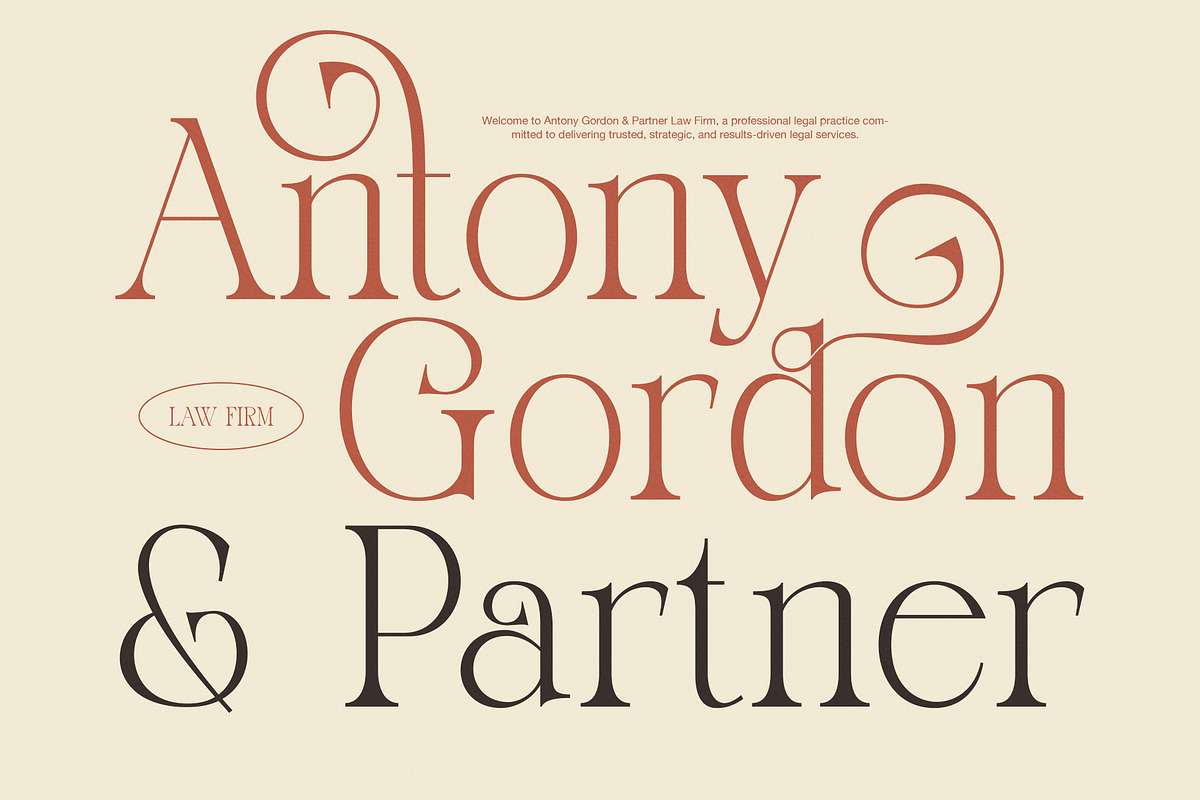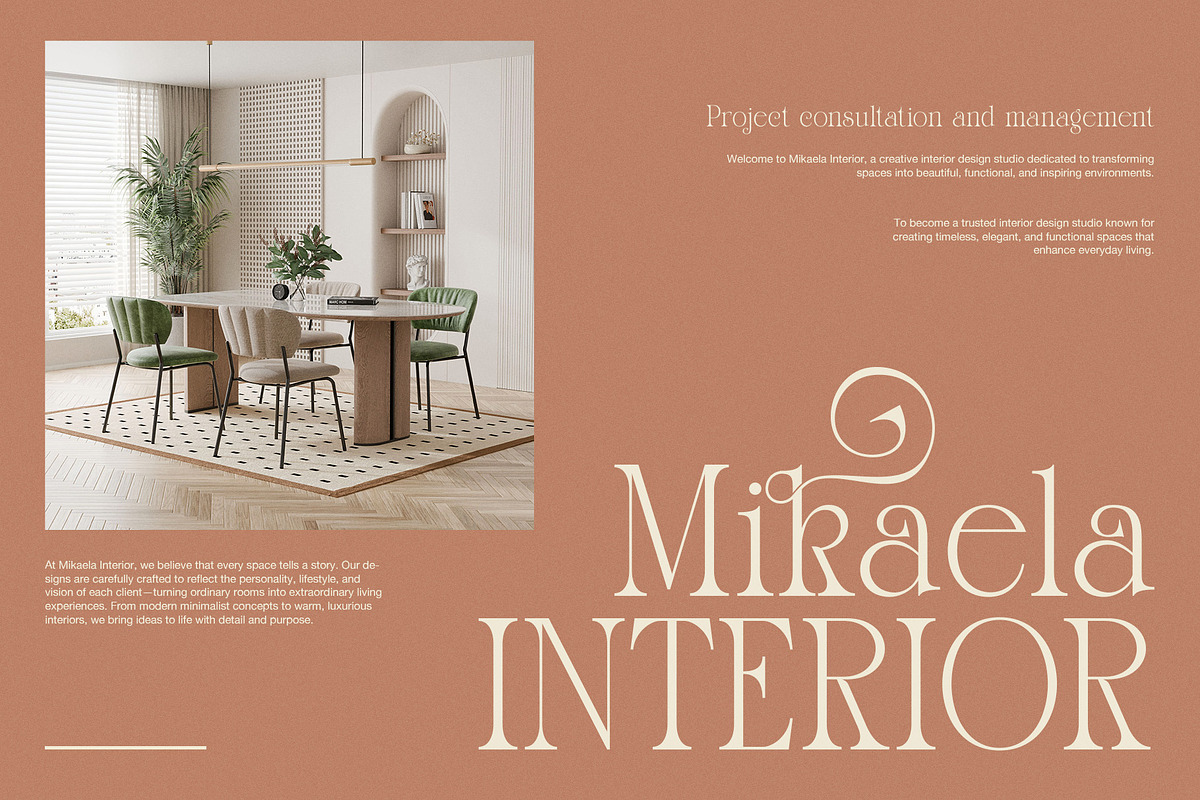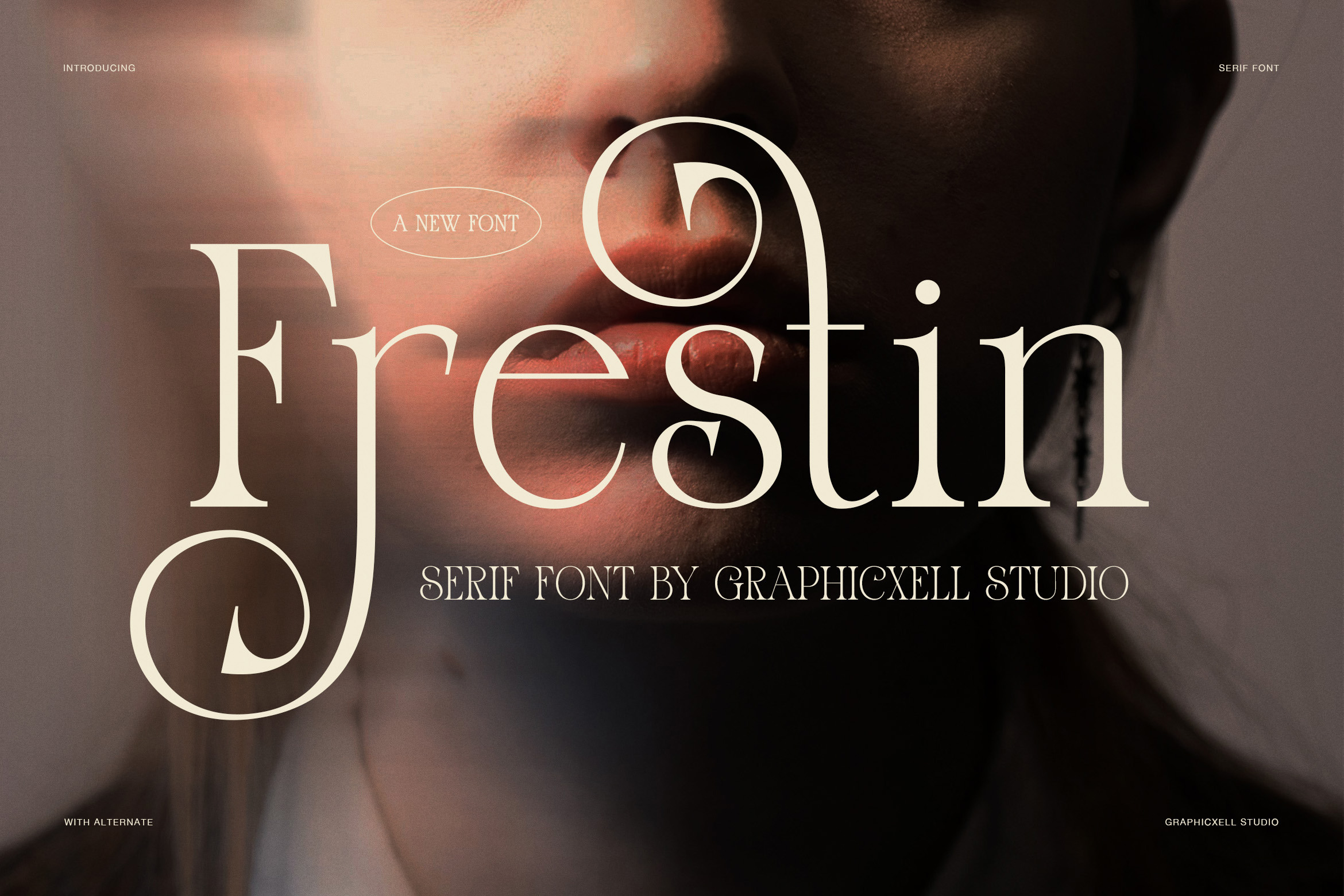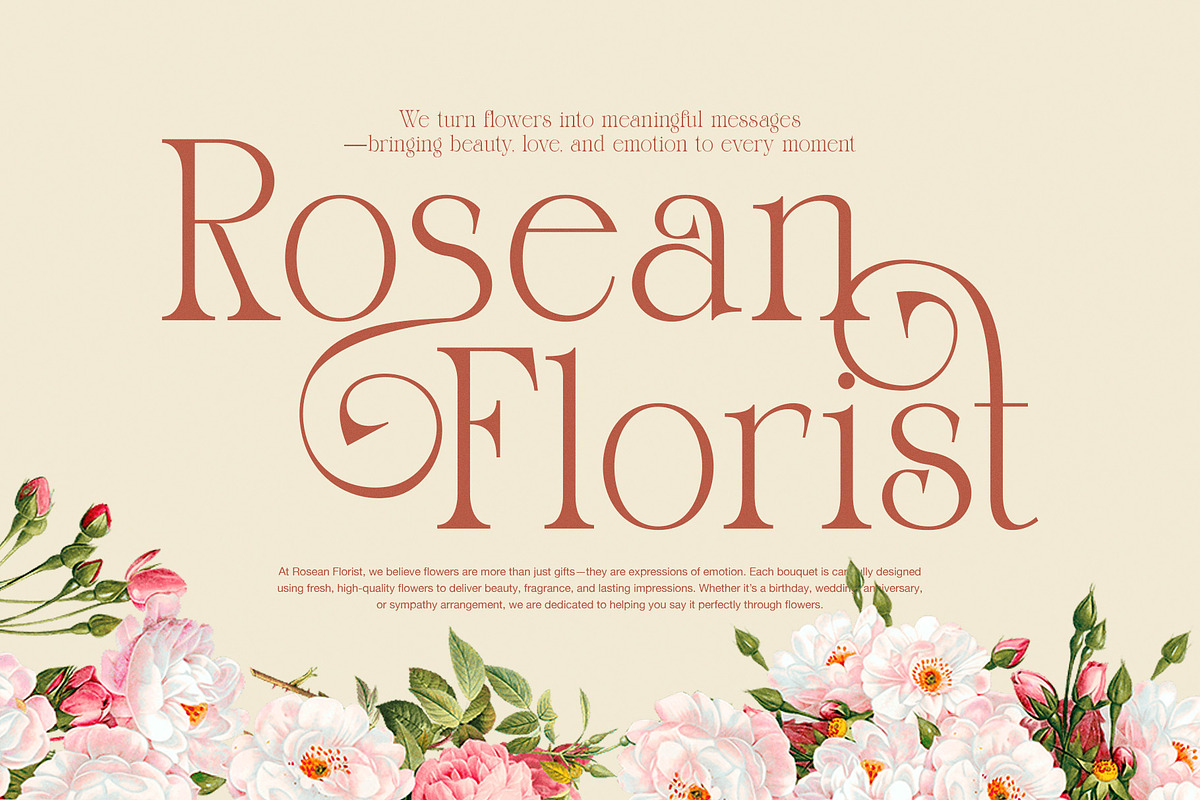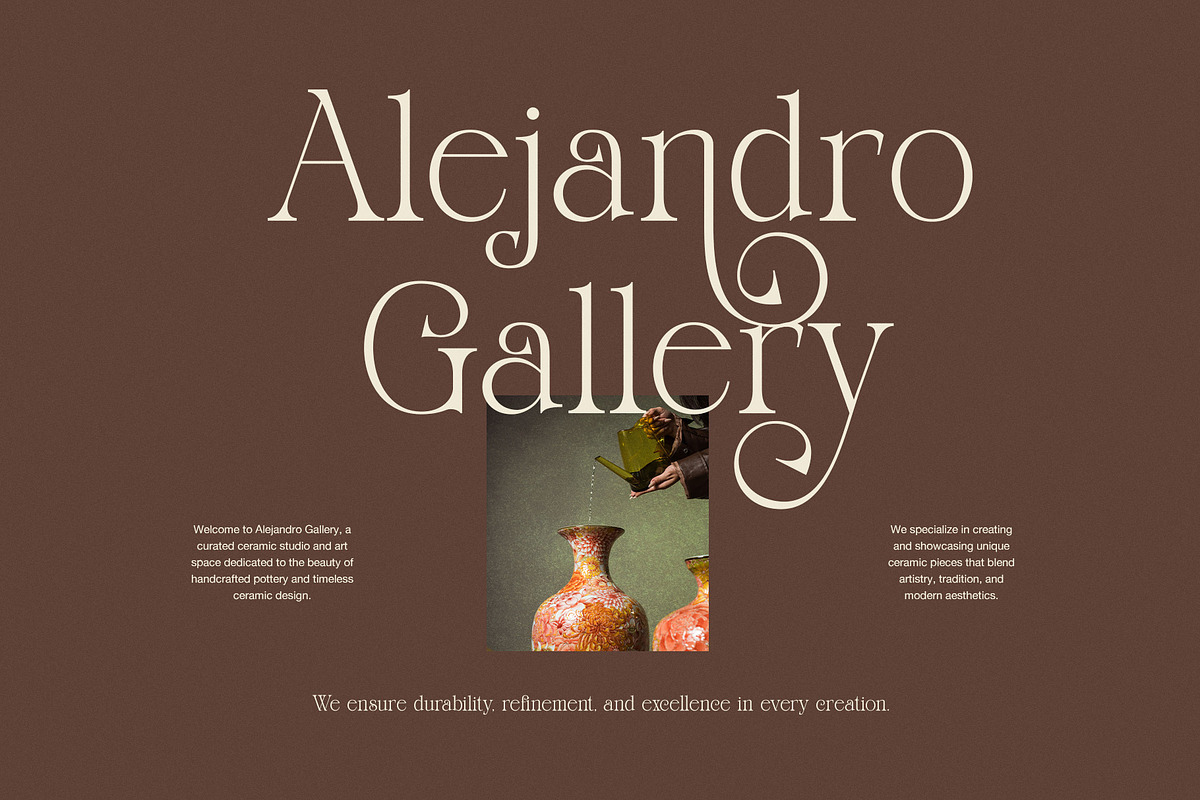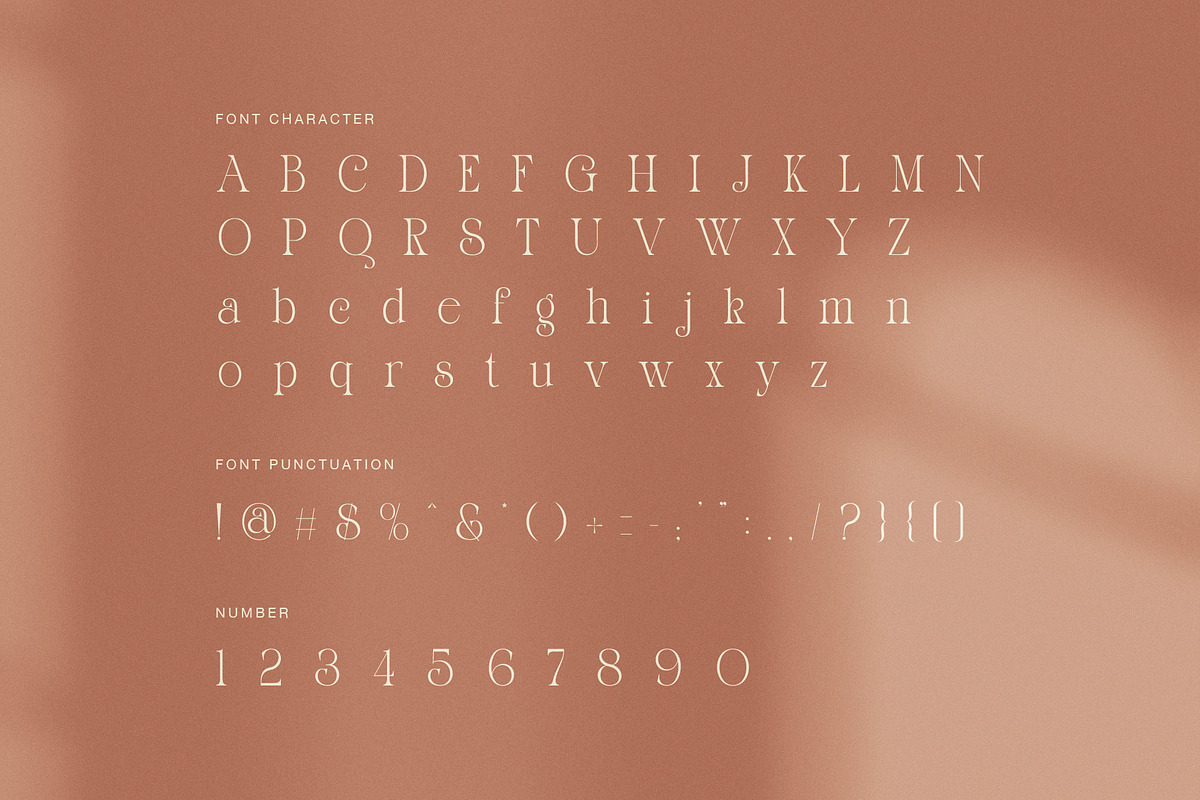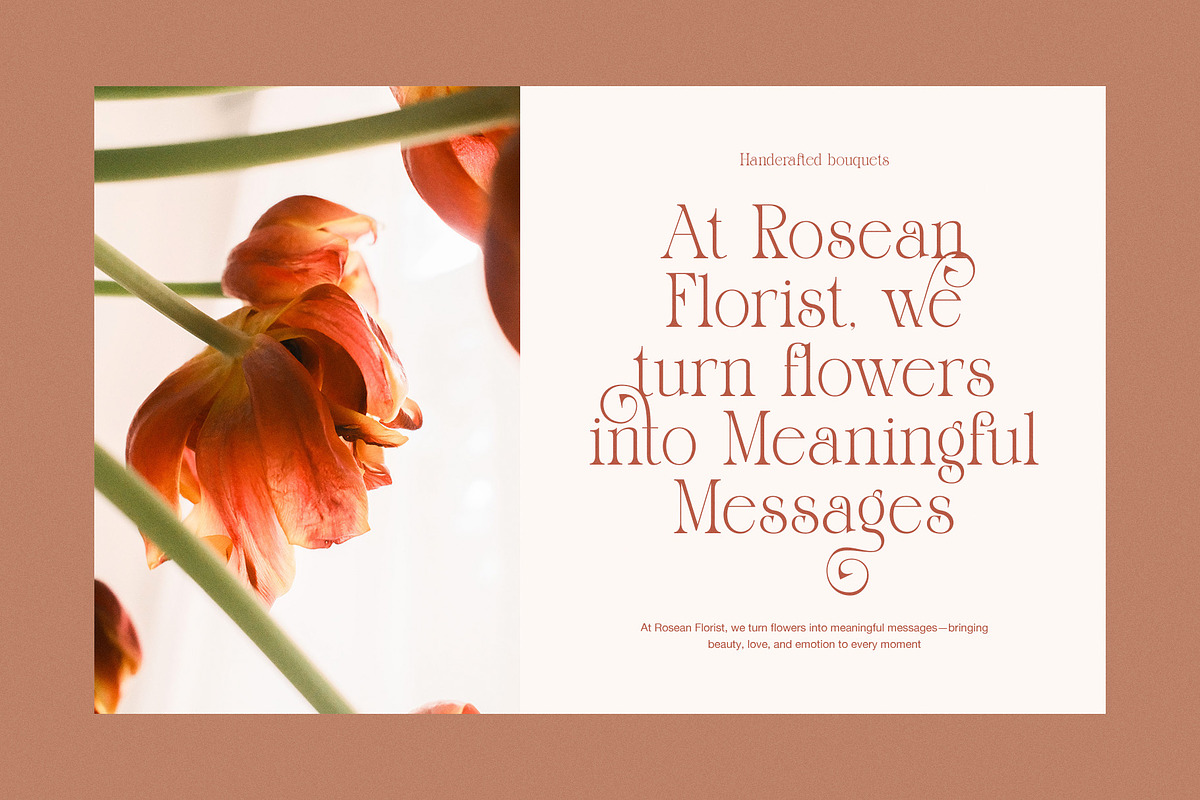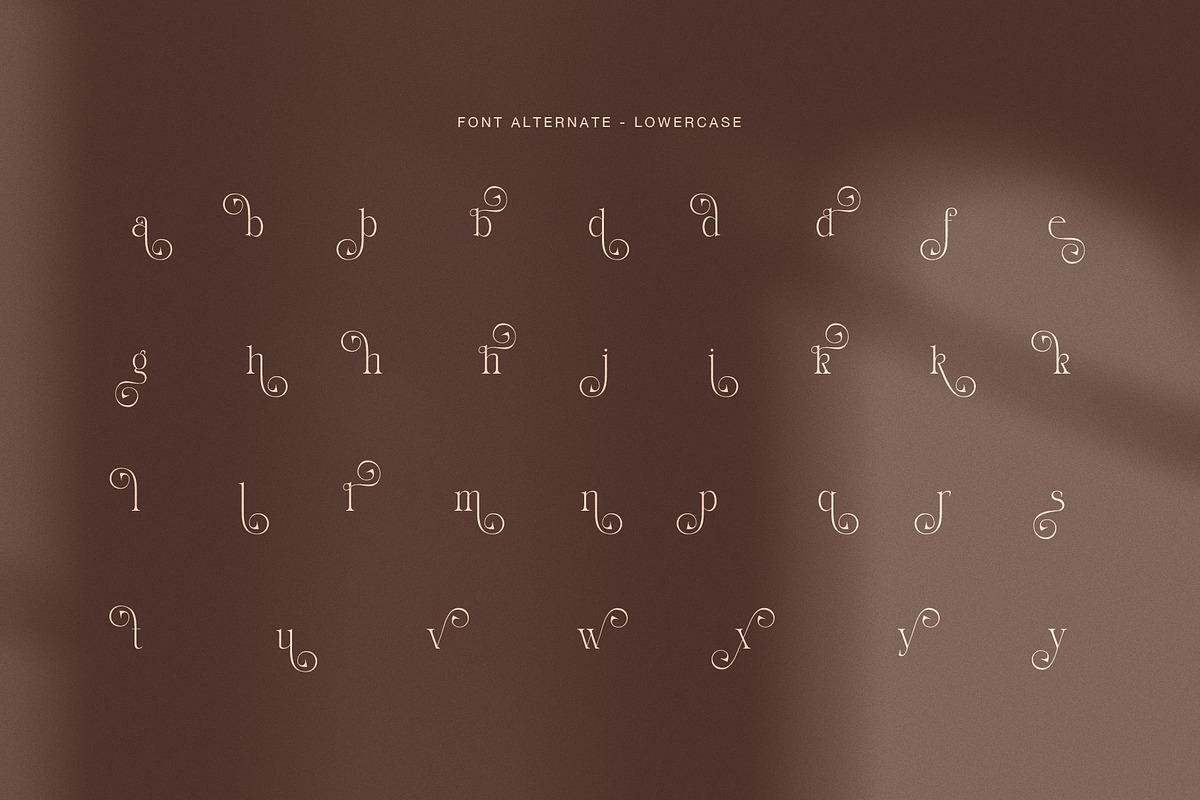
Frestin Elegant Serif Font
Frestin is an elegant serif display font designed with smooth curves, refined contrast, and stylish swashes. Moreover, it blends modern luxury aesthetics with classic serif structure. As a result, it delivers a sophisticated look for branding, editorial, and fashion-based design projects.
In addition, Frestin offers a strong visual personality that enhances any creative work. The elegant letterforms are carefully shaped to feel both artistic and readable. Therefore, it works perfectly for logos, magazine titles, packaging, and social media branding. Furthermore, the inclusion of alternates and ligatures allows designers to create unique and expressive typography layouts.
Meanwhile, the font carries a soft luxury feeling inspired by high-end fashion branding and modern editorial design. However, it still maintains balance and clarity, making it suitable for both print and digital media. As a result, designers can use it confidently across many professional applications.
Frestin is ideal for wedding invitations, boutique branding, beauty products, lifestyle campaigns, and creative portfolios. Moreover, it helps brands communicate elegance, emotion, and identity in a stylish way. Therefore, it becomes a powerful tool for designers who want to build premium visual storytelling.
Elegant serif style with modern contrast
Decorative swashes and stylish alternates
Ligatures for creative typography control
Luxury-inspired branding aesthetic
Strong readability in display sizes
Suitable for print and digital design
In addition, Frestin supports creative composition for headlines and logotypes. Furthermore, it helps establish clear visual hierarchy in modern layouts. Meanwhile, it pairs beautifully with minimalist sans serif fonts for contrast and balance.
It is also highly effective for social media graphics, advertisements, product packaging, and brand identity systems. Moreover, it allows designers to stand out in competitive visual markets. Therefore, it is a reliable choice for professional and commercial design projects.
Overall, Frestin delivers elegance, clarity, and modern luxury in one refined serif typeface, making it a timeless solution for high-quality creative work.